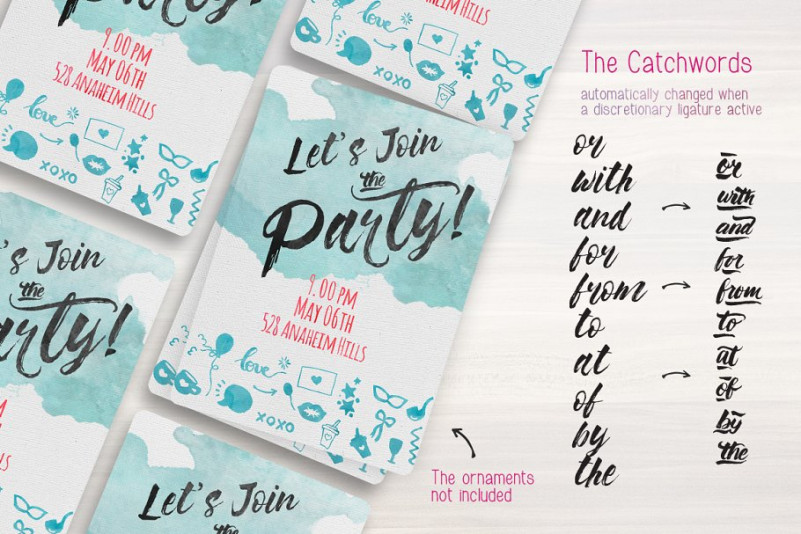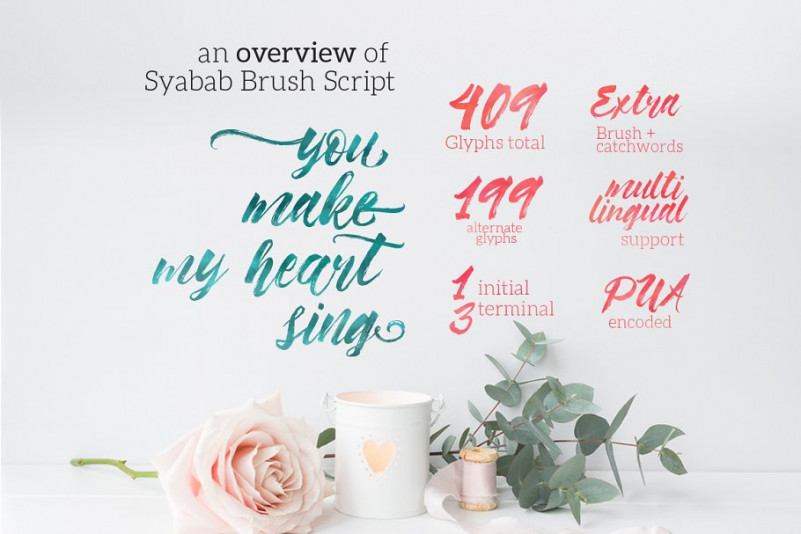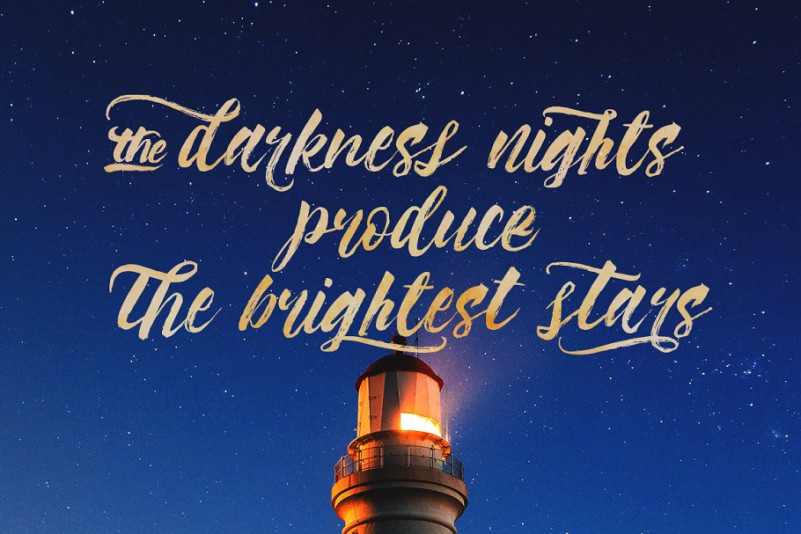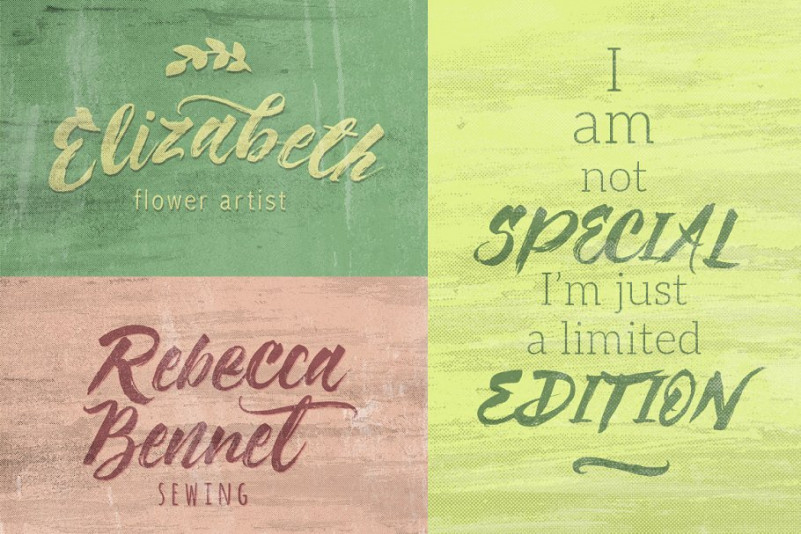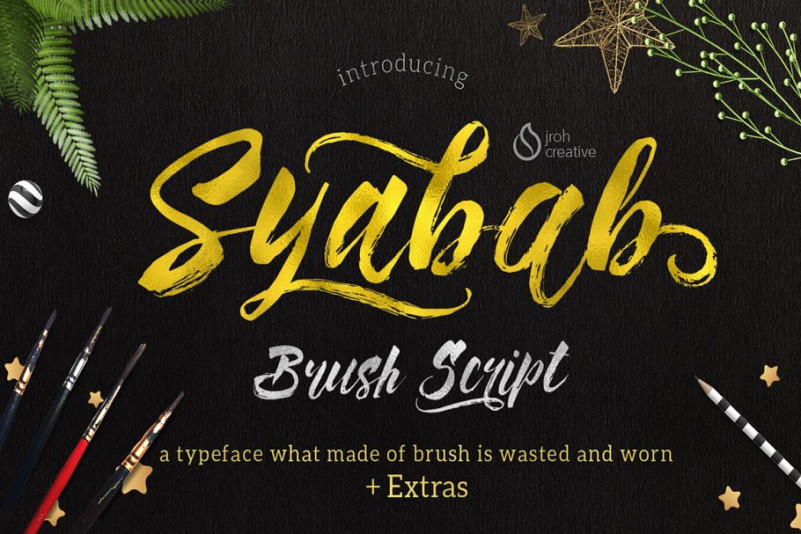
Syabab Brush Script – Free Demo
Hi everyone, Introducing my new font in this spring. Syabab Brush Script is my original character I created inadvertently after scribble exercises with brushes are worn out and broken. These fonts may be suitable for a wide variety of designs who need a freestyle expression with vintage or modern style.
Syabab Brush Script package is perfect for making design: posters, a variety of quotes, header, logo design, blog headers, all kinds of covers, T-shirts, mugs, etc.